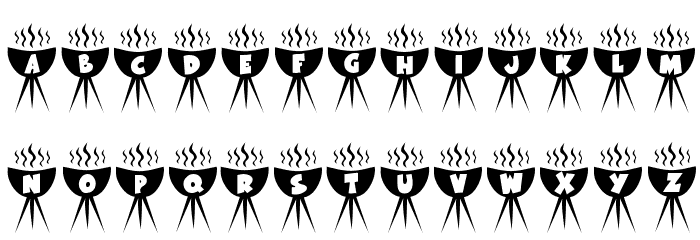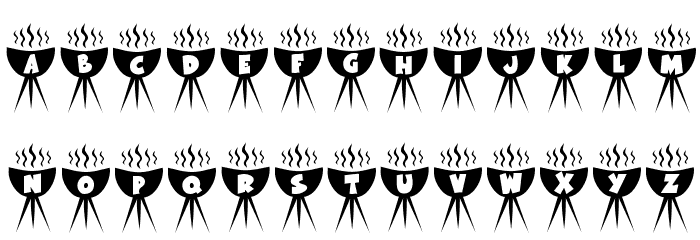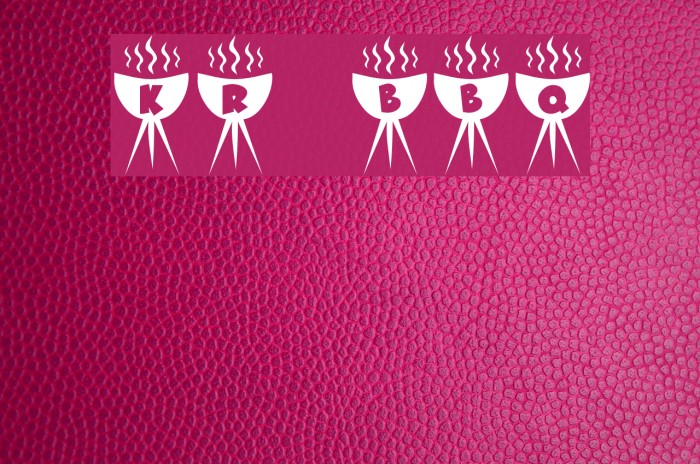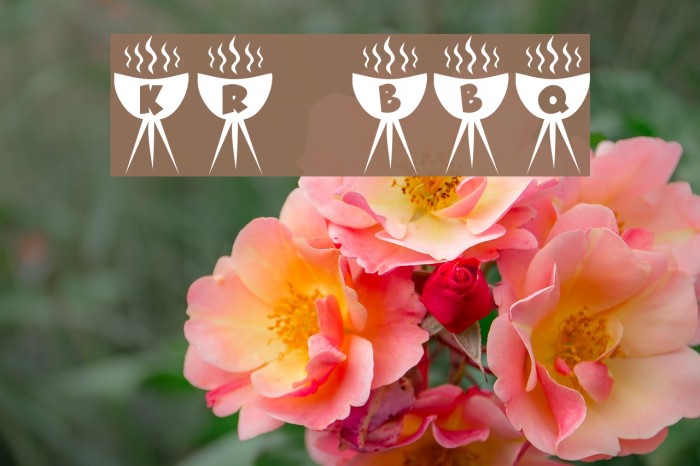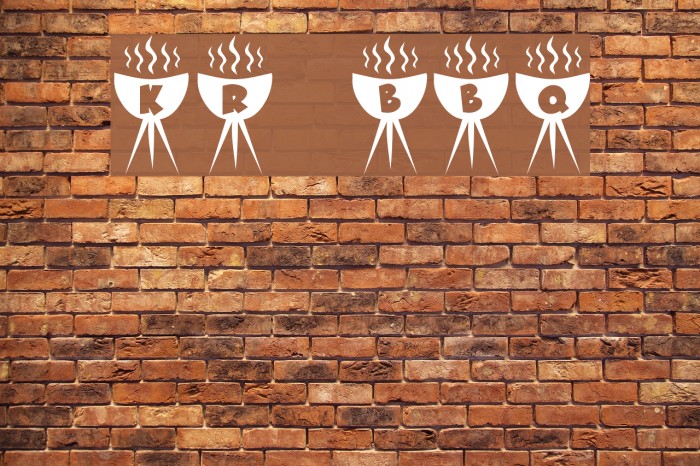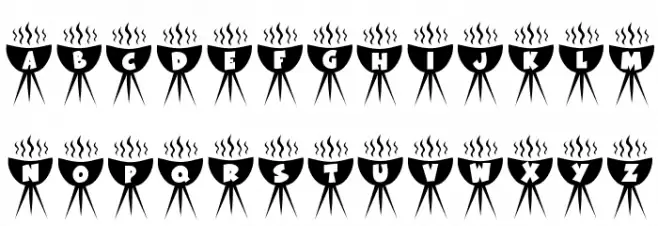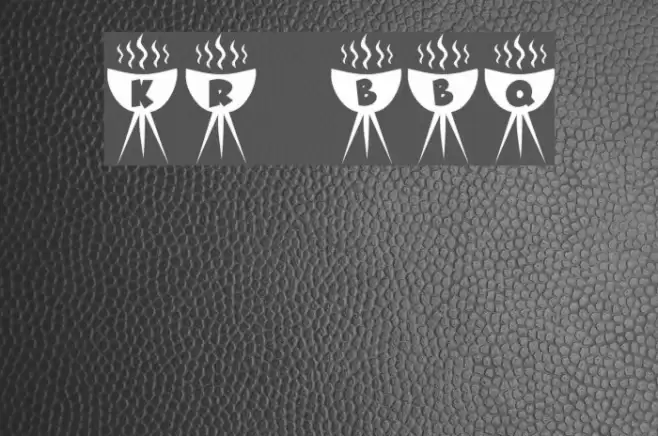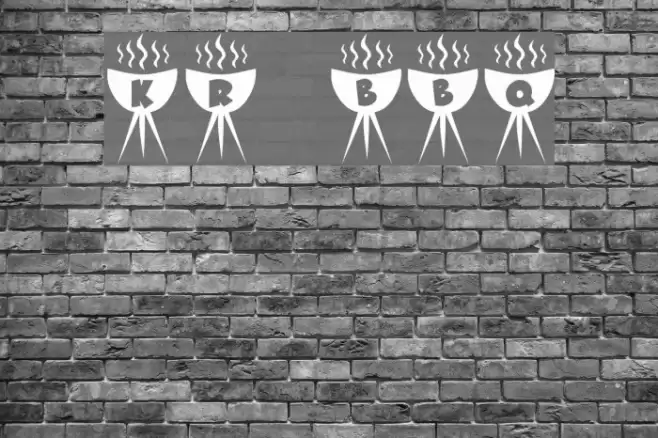
KR BBQ Font
This playful and thematic font features each character embedded within a stylized barbecue grill, complete with smoke rising from the top. The design is bold and eye-catching, making it ideal for projects that require a fun and unique touch. The uppercase letters are prominently displayed within the grill shape, creating a cohesive and thematic appearance. The font's decorative nature makes it suitable for specific occasions or themes, particularly those related to cooking, outdoor events, or summer festivities. The consistent design across all characters ensures a uniform look, while the creative concept adds a layer of visual interest.
A decorative font with letters inside barbecue grills, perfect for themed designs.
- Proposed Projects: Ideal for BBQ event invitations, summer party flyers, themed restaurant menus, or any project needing a fun, outdoor cooking vibe.